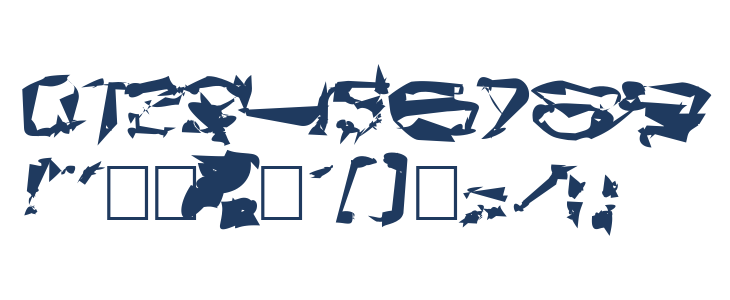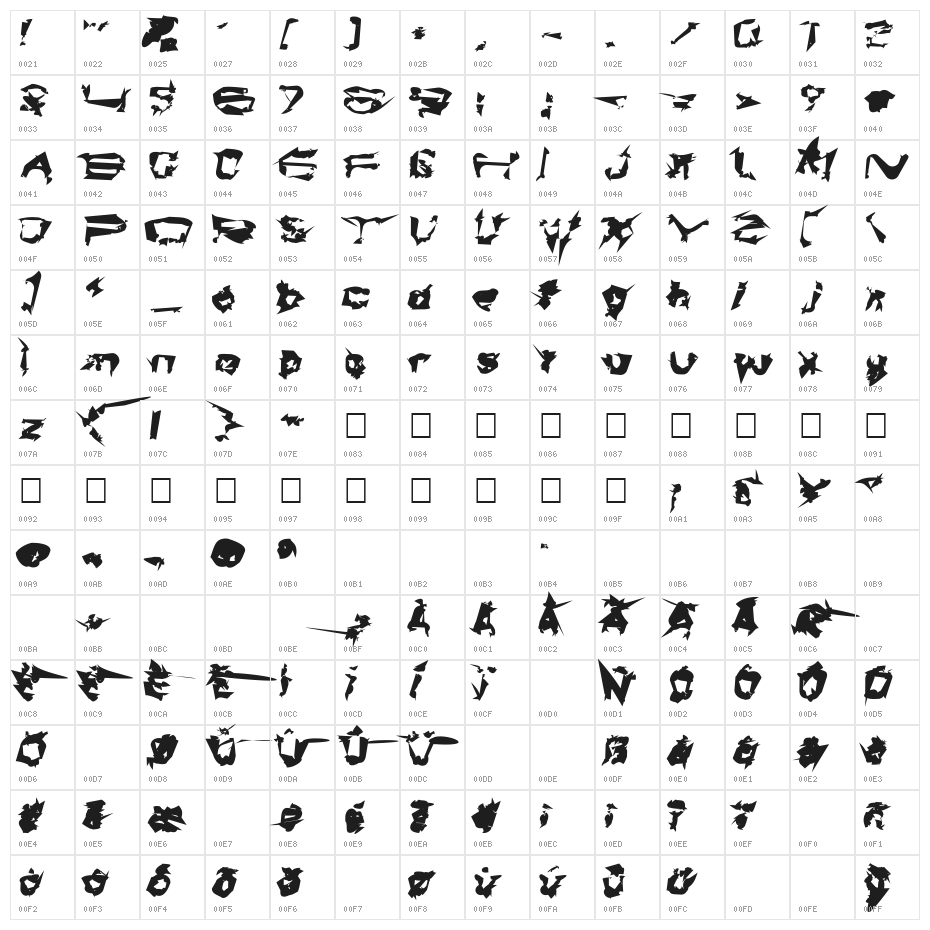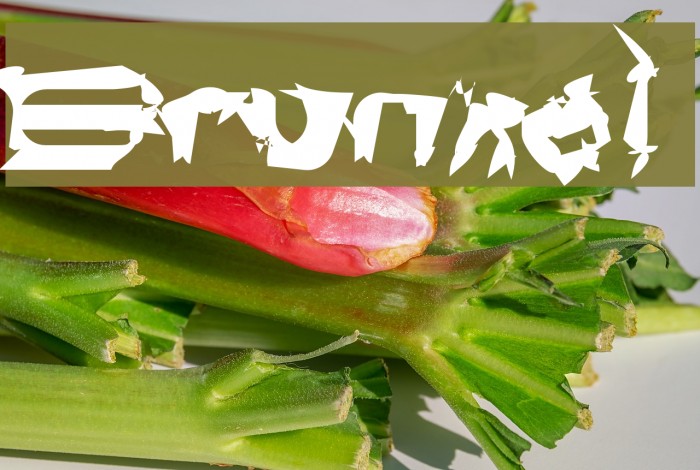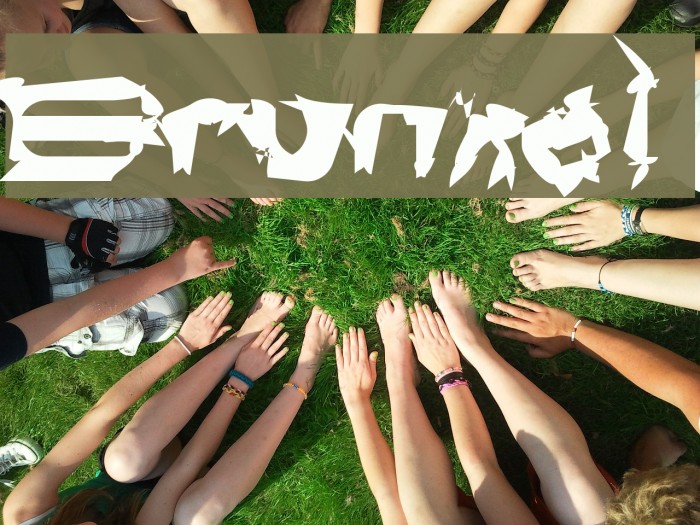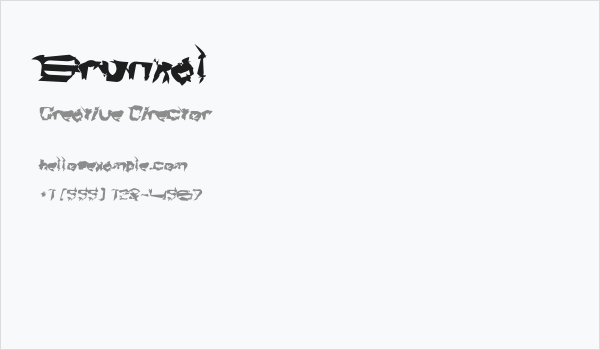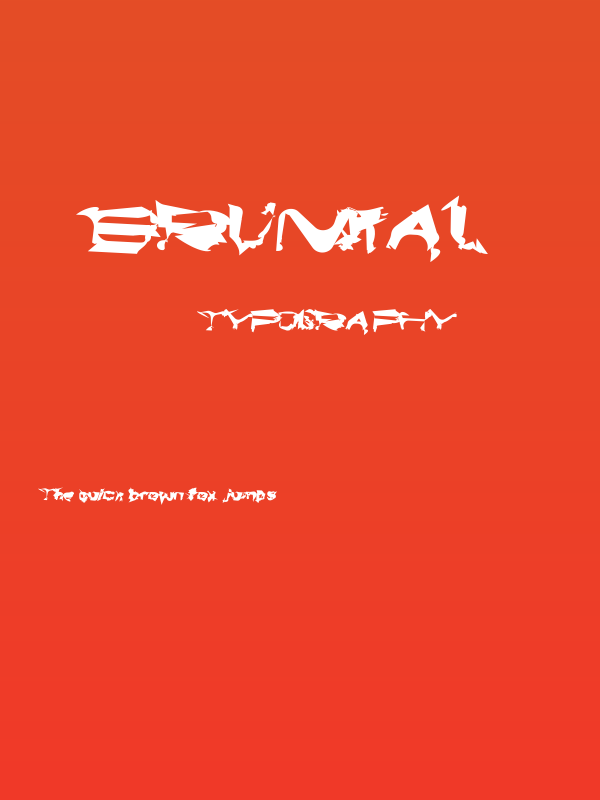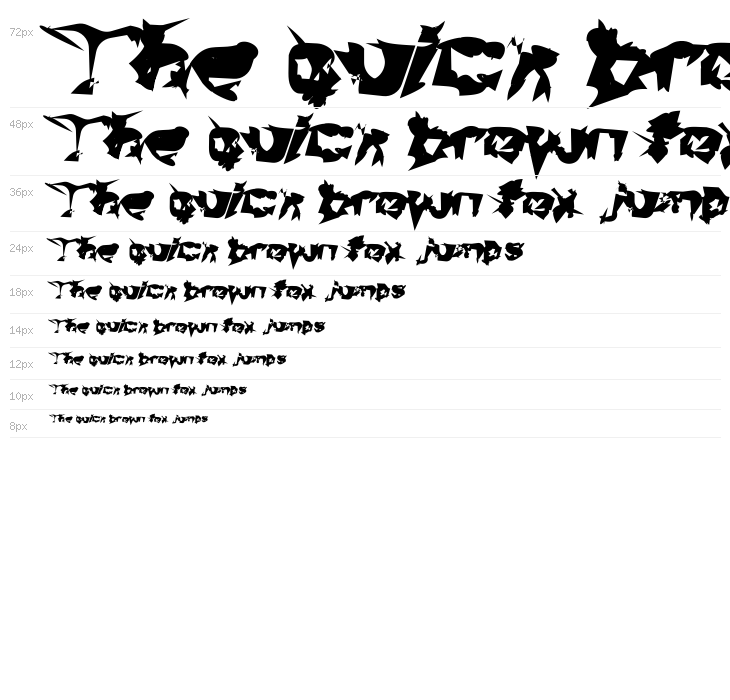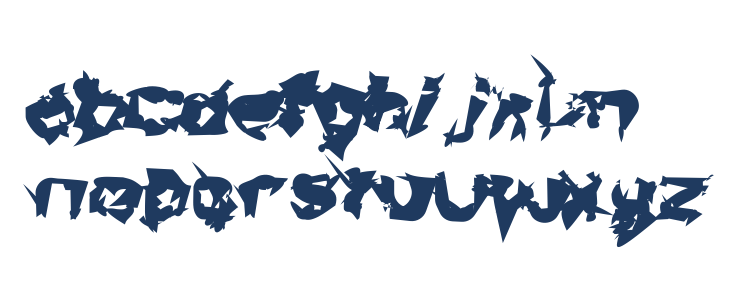
Brunkal Font
Brunkal Description
This font exhibits a highly decorative and abstract style, characterized by sharp, jagged edges and irregular shapes that create a chaotic yet artistic appearance. The letters are fragmented and appear as if they are constructed from shattered pieces, giving the font a dynamic and aggressive look. The uppercase and lowercase letters maintain this fragmented style, with each character uniquely distorted. The numbers and special characters follow the same design principle, ensuring consistency throughout the font. This font is not suitable for body text due to its complexity but can be highly effective in creating striking visual impact in titles or artistic projects.
| Use Case | Headlines, Logos, Artistic projects |
| Proposed Projects | Ideal for album covers, poster designs, graffiti art, and any project requiring a bold, artistic statement. |